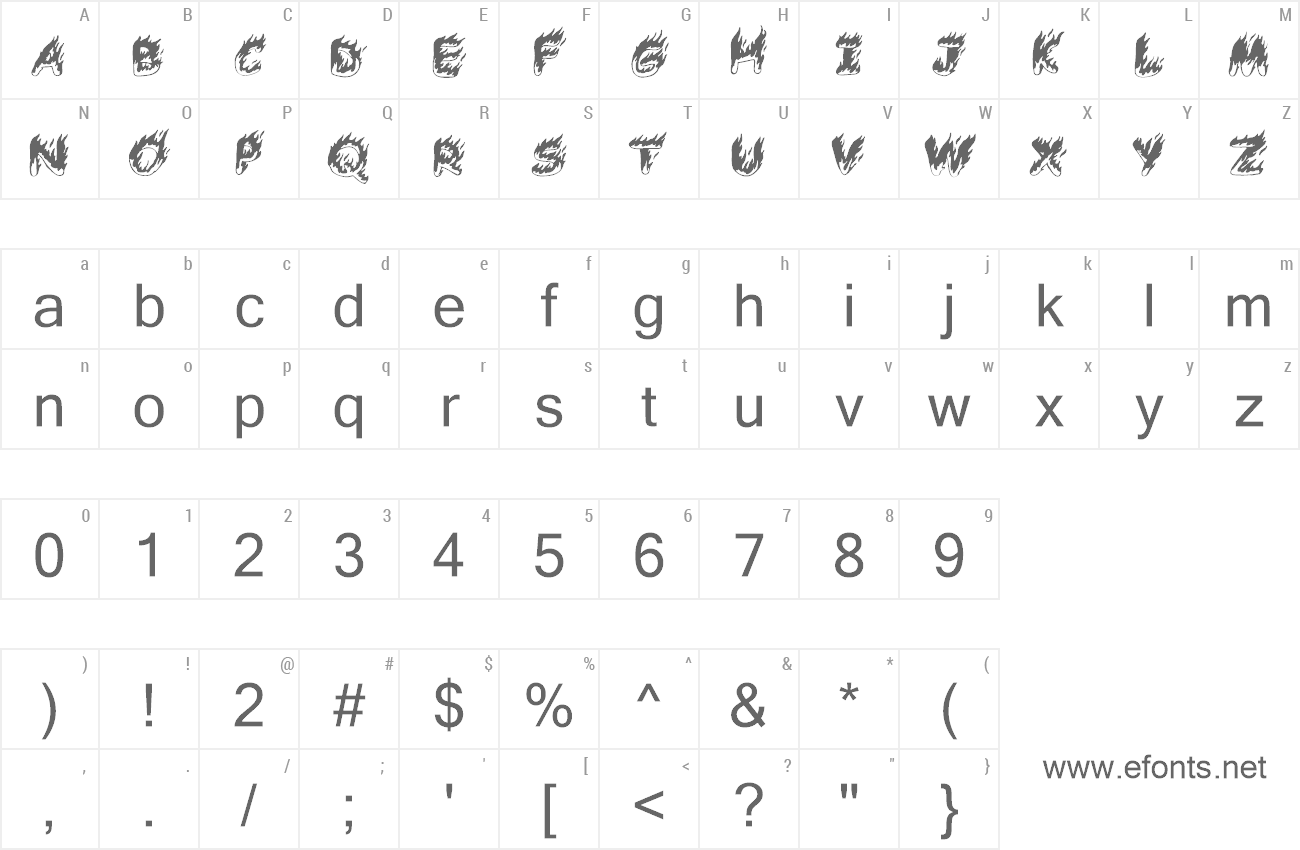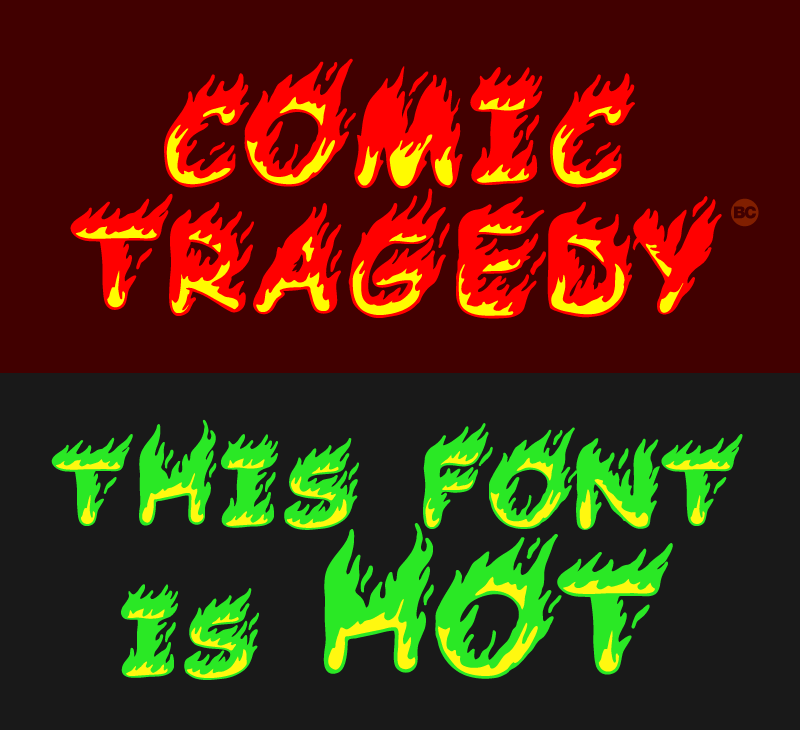
Comic Tragedy By BC - VNBC This hand-drawn burning font inspired by Comic Sans MS (elected worst font on earth) is perfect when party turns bad. It comes in three styles: Regular - Base - Flames Base and Flames work together for a burning bright two color. This font version is uppercase only and comes free for personal use. If you want to use it in commercial purpose please purchase a license here: http://www.revolge.com/product/comic-tragedy-font/ Or contact me at bc(at)vnbc.fr |